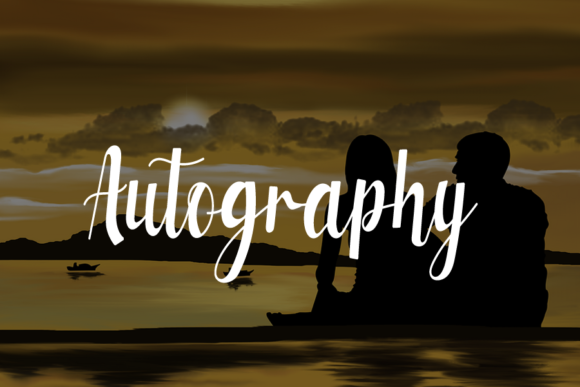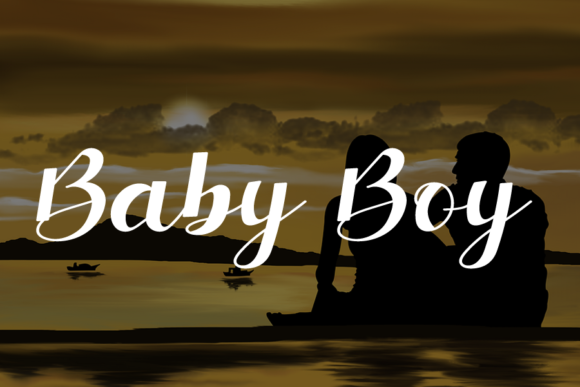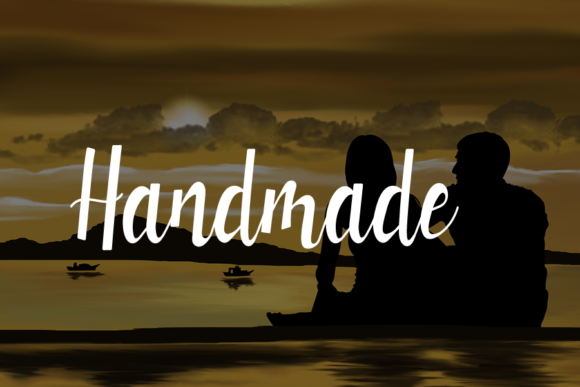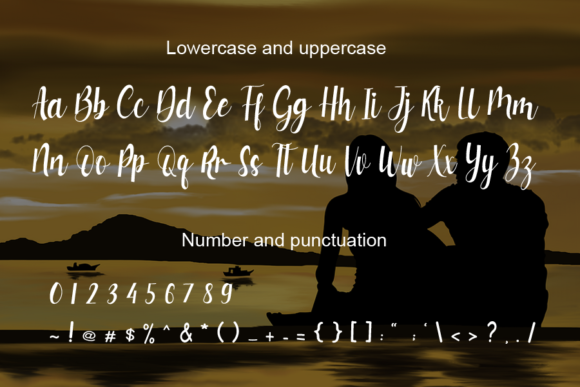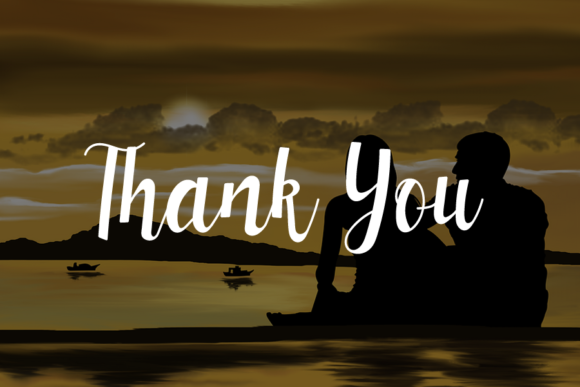
Beachman Font
About Beachman Font
Beachman is a flowing handwritten font, described by an elegant touch, perfect for your favorite projects. Fall in love with its incredibly distinct and timeless style and use it to create spectacular designs!